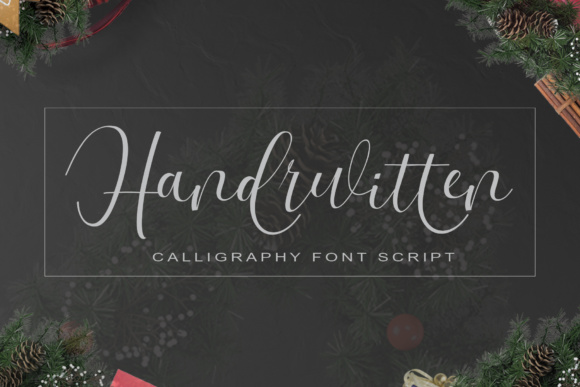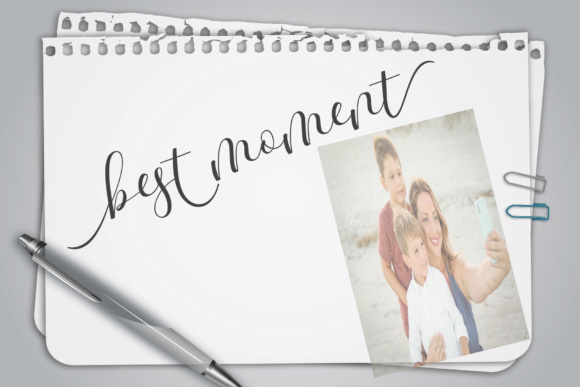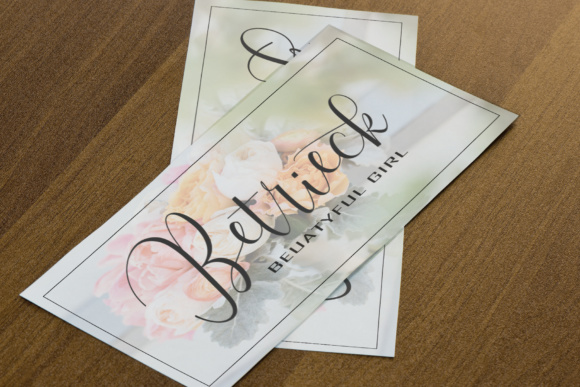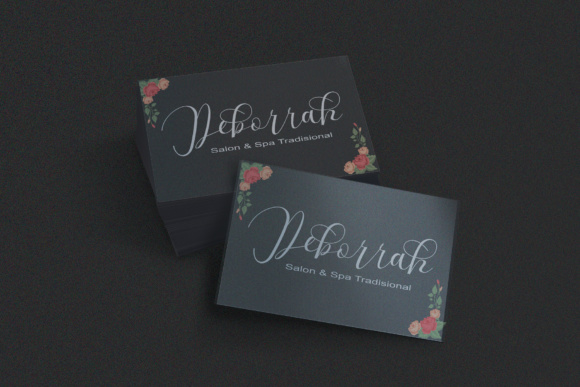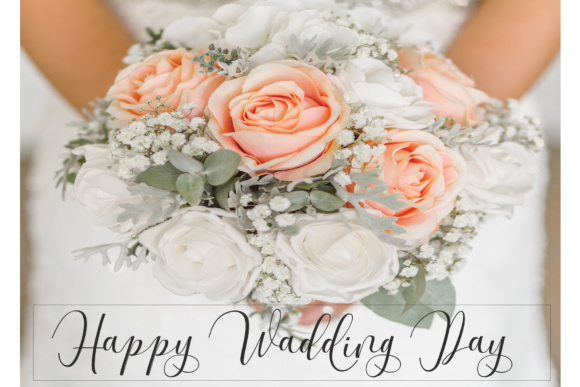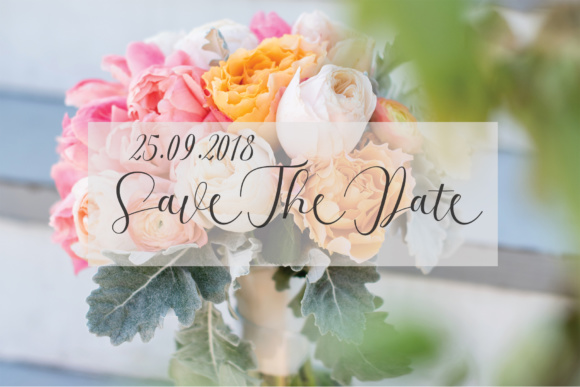
The Dellima Font: A Handwritten Gem for Unique Designs
I still remember the time I was working on a wedding invitation project, and my client asked me to create a custom design that would reflect the couple’s playful and romantic personalities. I spent hours scouring font libraries, but nothing seemed quite right. That’s when I stumbled upon the Dellima font, and it instantly clicked. The unique, handwritten feel of Dellima was perfect for the job, and my client loved it. Since then, I’ve been hooked on this font, and I’m excited to share its awesomeness with you! 😊
An Honest Review of Dellima
- ✨ Unique and Handwritten: Dellima has its own distinct character that sets it apart from other fonts.
- ✅ Versatile: This font is perfect for various design projects, including invitations, signatures, blogs, social media, and more.
- 💫 Easy to Read: Despite its handwritten nature, Dellima is surprisingly legible, even at smaller font sizes.
While Dellima is an amazing font, it’s not perfect. Here are a few things to keep in mind:
- ⚠️ Limited Use in Formal Designs: Due to its playful, handwritten nature, Dellima might not be the best choice for formal or professional designs.
- 🤔 Some Glyphs May Not be Suitable for All Languages: As with any font, it’s essential to test Dellima with your specific language and character set to ensure compatibility.
The Story Behind Dellima
Dellima was designed with love and care by a talented type designer who aimed to create a unique, handwritten font that would bring a personal touch to designs. The font’s creator drew inspiration from everyday handwriting and aimed to capture the imperfections and charm of handwritten text.
Q: What is the best use for Dellima?
A: Dellima is perfect for designs that require a unique, handwritten look, such as invitations, signatures, blogs, and social media graphics.
Q: Is Dellima suitable for body text?
A: While Dellima is legible, it’s best suited for titles, headings, and short texts. For body text, you may want to choose a more traditional font.